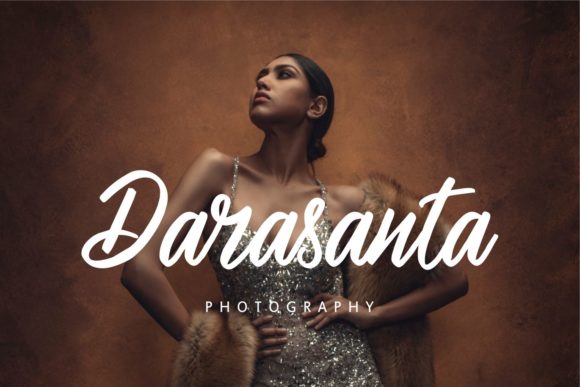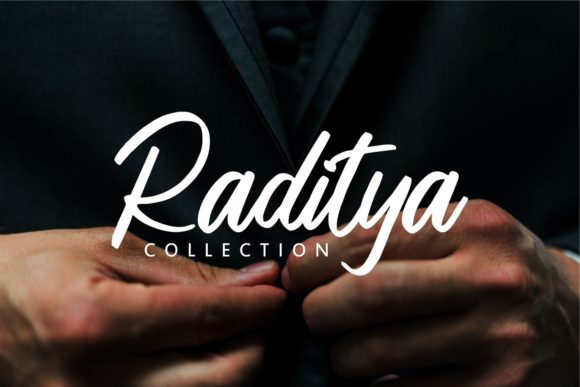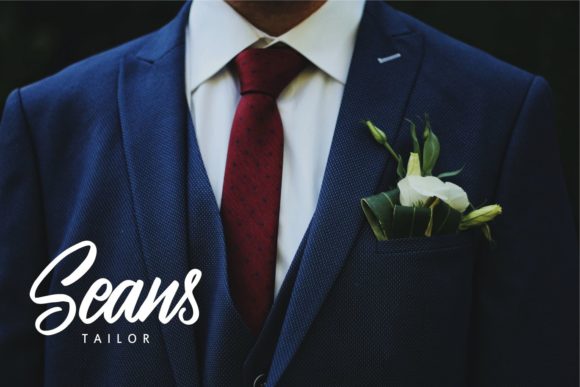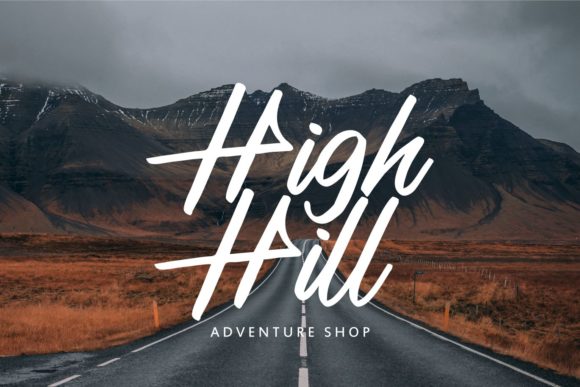
Introduction to Himaliya Font
Have you ever been working on a creative project and stumbled upon the perfect font, only to realize it’s missing that special something to take it to the next level? That’s where the Himaliya Font comes in – a modern and sleek handwritten font with a smart twist that will elevate your design to new heights.
As a designer, you’re always on the lookout for high-quality design resources that can help bring your vision to life. The Himaliya Font is a valuable addition to any creative project, offering a unique blend of style and sophistication that’s sure to impress. Whether you’re working on a branding project or a digital design, this font is the perfect choice for anyone looking to add a touch of contemporary charm to their work.
- High-quality design resource ideal for creative projects, offering a unique and stylish look.
- Features a transparent background, allowing for seamless integration with any design or image.
- Comes in a range of sizes, from 12pt to 72pt, and can be scaled to fit various design needs.
- Designed at a high resolution of 300 DPI, ensuring crisp and clear text display.
- Supports a wide range of languages, making it a versatile design resource for global projects.
- Perfect for use in digital design, print media, and web development, thanks to its high-quality and versatile nature.
Honest Review: Himaliya Font
As a designer, I’m always on the lookout for high-quality design resources to enhance my creative projects. Recently, I stumbled upon the Himaliya Font, and I must say, it’s a gem. The font is a free download, which is a huge plus for me, and the quality is top-notch.
What works well with the Himaliya Font is its versatility. It’s perfect for both digital and print projects, and it’s also great for logos, titles, and body text. The font is highly customizable, and it’s easy to adjust the size, color, and style to fit your design needs.
- ✨ Versatile and suitable for various design projects
- ✨ Highly customizable with a transparent background
However, I do have a few limitations with the Himaliya Font. The font family is a bit limited, and it may not be suitable for complex or intricate designs. Additionally, the font’s aesthetic may not appeal to everyone’s taste.
- ⚠️ Limited font family options
- ⚠️ May not be suitable for complex designs
Overall, I’m quite impressed with the Himaliya Font. It’s a great addition to any designer’s toolkit, and it’s perfect for quick and easy design projects. While it may have some limitations, I highly recommend it for its quality and versatility.
Himaliya Font
The Himaliya Font is suitable for a variety of use cases, including:
1. Branding and logo design
2. Social media graphics and posts
3. Infographics and data visualization
4. Brochures and flyers
5. Business cards and letterheads
What is the recommended resolution for using the Himaliya Font?
We recommend using the Himaliya Font at a resolution of 300 DPI (dots per inch) or higher for optimal quality. This ensures that the font looks sharp and clear in print or digital applications, making it perfect for a wide range of creative projects.